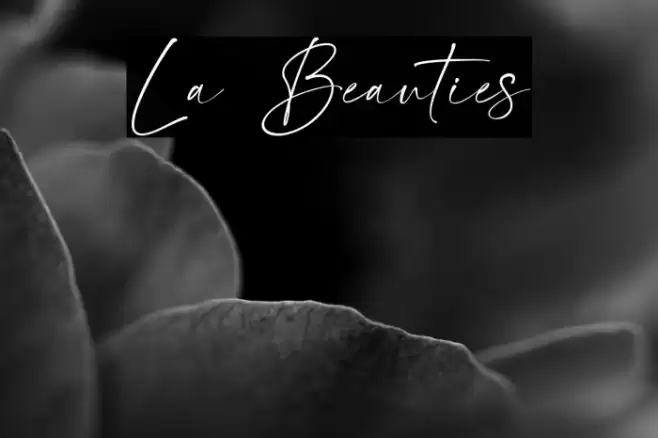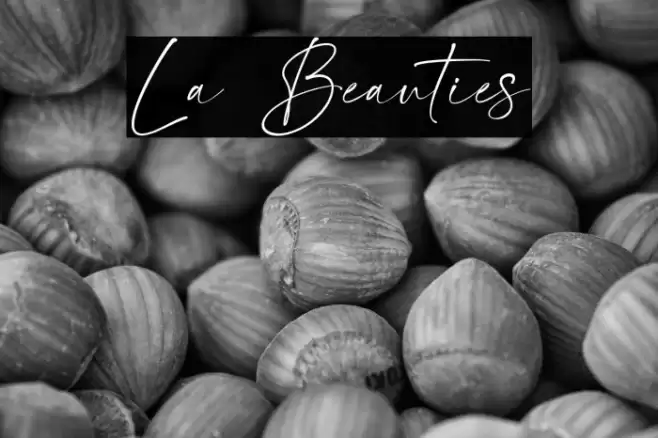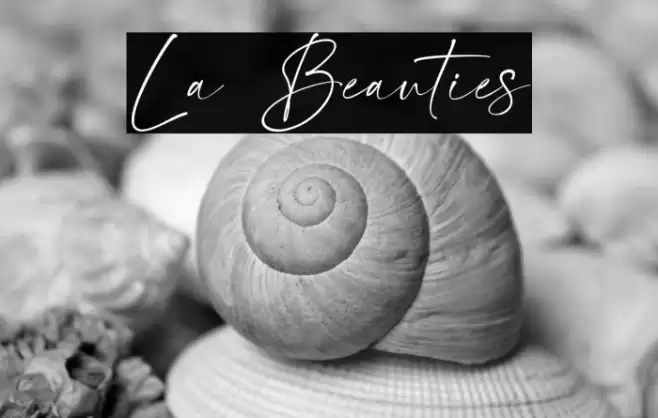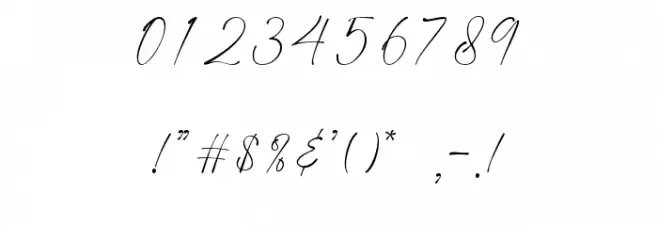
La Beauties Font
This elegant script font features fluid, graceful strokes that mimic the natural flow of handwriting. The characters are delicately crafted with a slight slant, giving them a sophisticated and stylish appearance. The uppercase letters are slightly larger and more ornate, while the lowercase letters maintain a consistent, flowing style. The numerals and special characters complement the overall aesthetic, making it versatile for various design needs. The font's thin lines and subtle curves create a sense of elegance and refinement, perfect for adding a personal touch to any project.
A graceful script font with fluid, elegant strokes and a handwritten style from Regular fonts.
- Proposed Projects: Ideal for wedding invitations, greeting cards, personal branding, and elegant packaging designs.
- Weight: Light
- Overall Style: Elegant, Handwritten
- Use Case: Logos, Invitations, Personal Branding